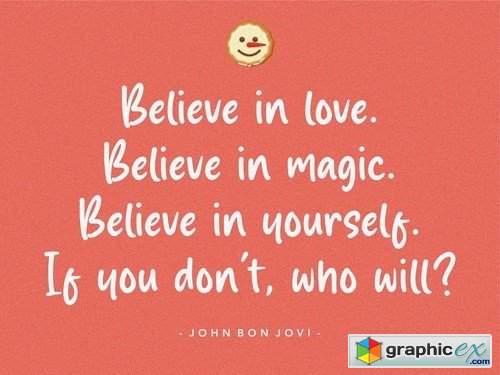
Magic Clause Hand Brush Font
Magic Clause is perfect for product packaging, branding project, megazine, social media, wedding, or just used to express words above the background.